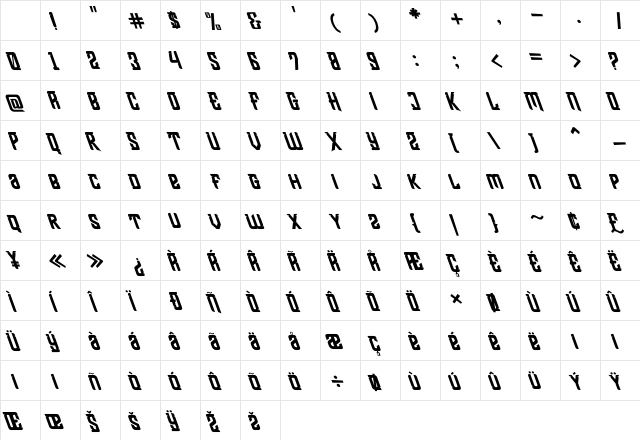
Complete Shean Holmes Oblique Regular glyph index. Displaying only characters natively supported by Shean Holmes Oblique Regular font.
Shean Holmes Oblique is a composed and adaptable typeface that performs quietly and consistently across a wide range of design contexts. The slanted form adds forward momentum and visual energy.
Pro Tip: Use Shean Holmes Oblique for emphasis, pull quotes, and subheadings where its slanted energy can add rhythm to the layout.